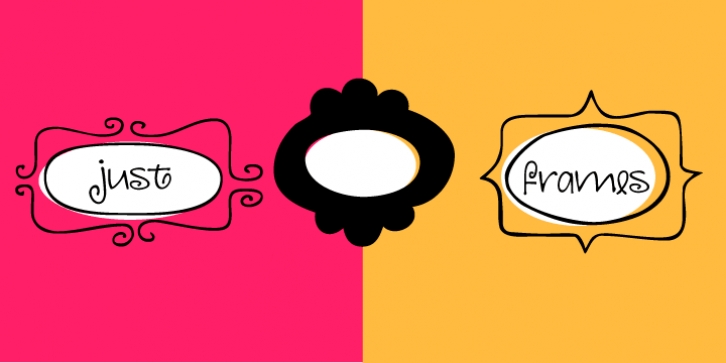
Just Frames is a dingbat font published by Outside the Line.
Just Frames… 31 to be exact. Some swirls, some hearts, some ovals, some squares. Some line, some solid, all with a fun hand drawn feel.
Just add some hand drawn type and you are done.